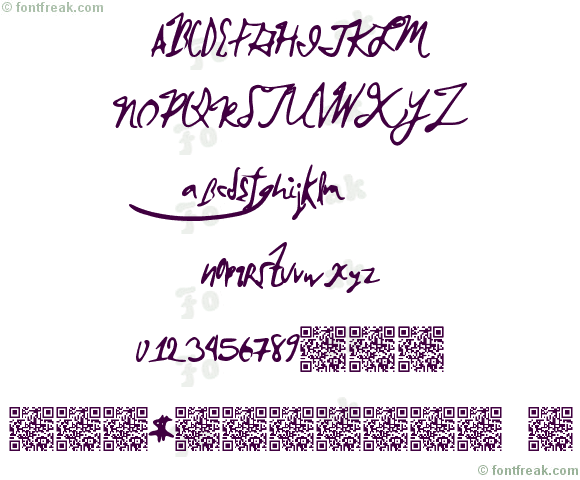
BrokenMustangs
About BrokenMustangs
The BrokenMustangs font by Xerographer Fonts is a striking display typeface that embodies a unique blend of creativity and boldness. This font features a handwritten style with a slightly informal charm, making it perfect for various applications. The strokes exhibit a medium weight, providing a balanced visual presence, while the uneven edges and distinctive curves add an artistic flair that speaks to the free-spirited nature of its design. The spacing is thoughtfully designed to maintain readability while allowing the playful characteristics of the letters to shine through.
BrokenMustangs is ideal for a range of creative projects. It can elevate wedding invitations, adding a personal touch that resonates with the couple's unique story. Its bold appearance makes it suitable for movie posters, where grabbing attention is crucial. Additionally, restaurant menus can benefit from its artistic style, enticing diners with a sense of creativity and warmth. Small business owners looking to establish a brand identity will find this font particularly appealing for logos and promotional materials that require a touch of personality.
The target audience for the BrokenMustangs font includes graphic designers, content creators, and small business owners who seek to convey a sense of individuality in their work. With its versatile appeal, it caters to those who appreciate the balance between creativity and functionality in typography.
What sets the BrokenMustangs font apart is its ability to convey both emotion and style. It's not just a typeface; it's a statement that invites viewers to engage with the content on a deeper level. For those interested in enhancing their design projects, the BrokenMustangs font free download offers an excellent opportunity to incorporate a unique, expressive element that can elevate any creative endeavor.